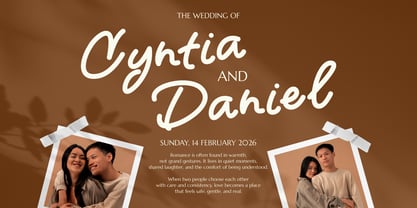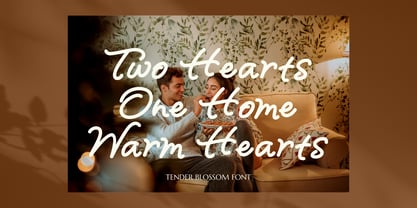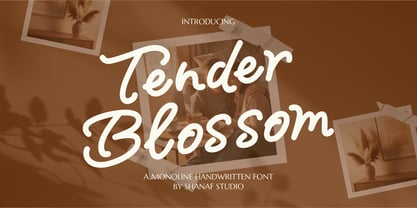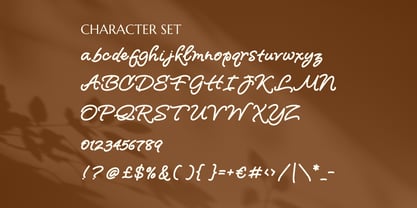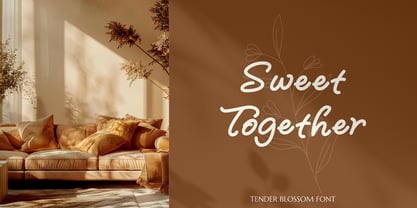
Tender Blossom
von Shanaf
Die Schriftfamilie Tender Blossom wurde von Yesie Erma Yunita entworfen und von Shanaf veröffentlicht. Tender Blossom enthält 1 Stile. Mehr über diese Familie
Tender Blossom Monoline Girly Script Font brings a soft handwritten personality with smooth flowing curves and balanced monoline strokes. The letterforms feature rounded terminals, connected characters, and gentle looping swashes that create a warm and approachable appearance. Its stroke weight stays consistent across each character, giving the font a clean monoline structure while preserving a natural handwritten rhythm. The slightly slanted forms add movement and emotional expression without reducing readability. This script style blends modern romance with casual elegance, making it suitable for feminine branding and heartfelt visual projects. Tender Blossom Monoline Girly Script Font works beautifully for wedding invitations, beauty logos, skincare branding, greeting cards, café menus, social media quotes, candle packaging, lifestyle branding, and boutique business identities. The overall style feels sweet, graceful, relaxed, and personal for brands that need a warm human touch.
This typeface performs strongly in logo design, branding presentations, poster titles, invitation cards, magazine covers, product labels, business cards, website headers, and promotional graphics. The flowing script structure creates a charming and intimate impression that fits romantic and feminine themes. Uppercase and lowercase characters maintain smooth consistency, while numbers and punctuation keep the handwritten style balanced across layouts. The font suits beauty salons, floral businesses, wellness brands, bakery shops, wedding organizers, home décor brands, and cosmetic packaging. Its soft handwritten details also work well for quotes, crafting projects, sticker designs, book covers, photography watermarks, and social media campaigns. The overall design feels modern, cozy, elegant, and naturally expressive while remaining easy to read in large display compositions and branding materials.
Designer: Yesie Erma Yunita
Foundry: Shanaf